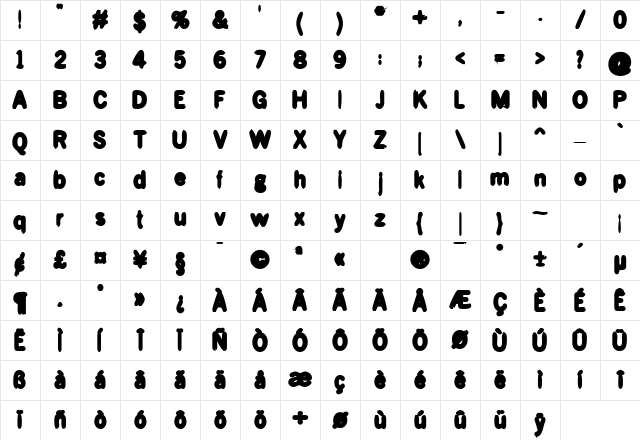
Blue Bond Bold Free Font
Blue Bond Bold
Design Context for Blue Bond
Blue Bond is a composed and adaptable typeface that performs quietly and consistently across a wide range of design contexts. Its bold stroke weight gives it real presence on the page.